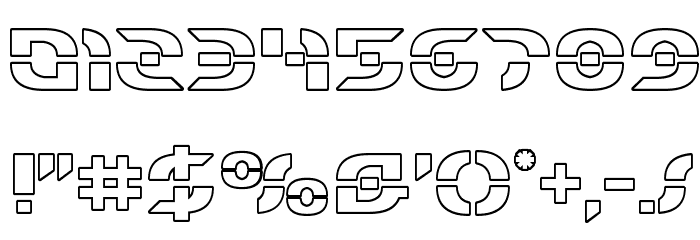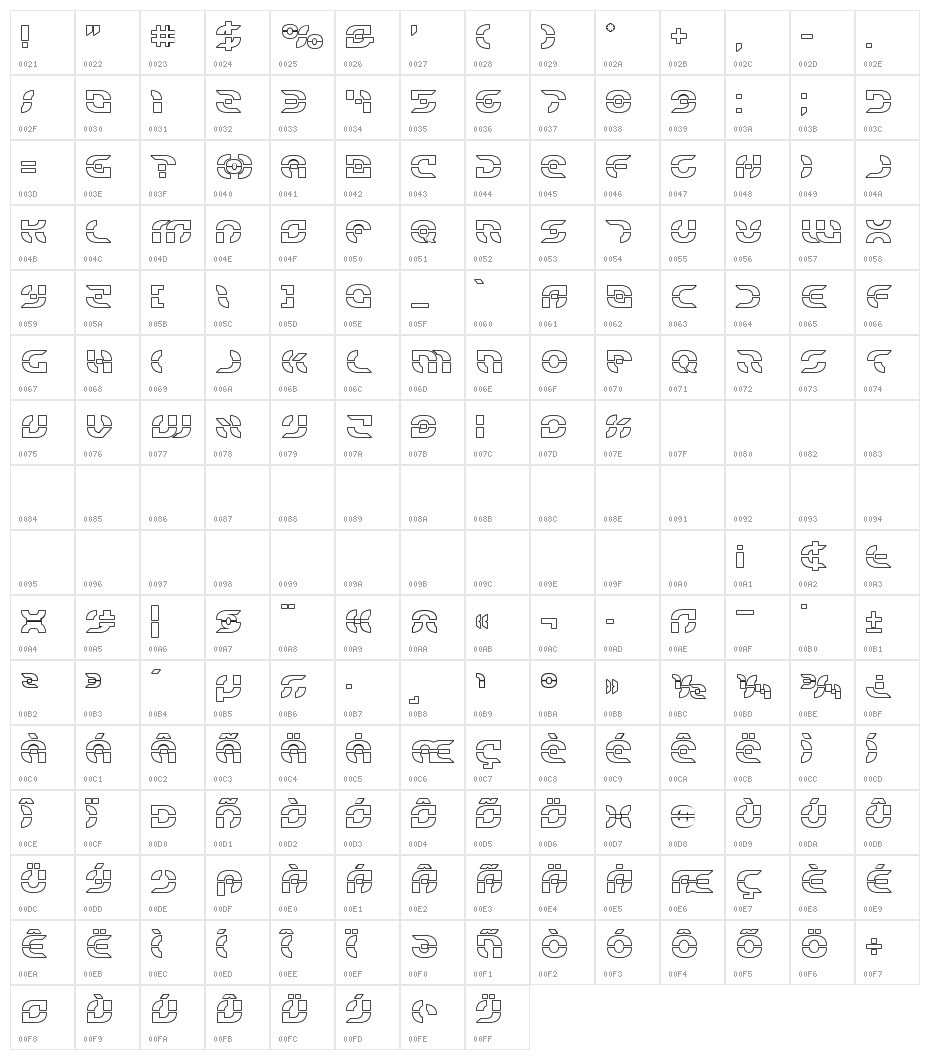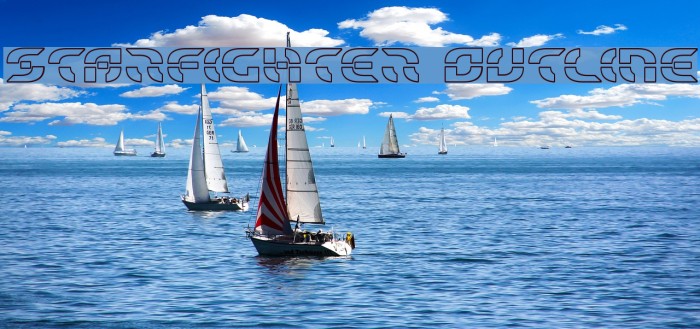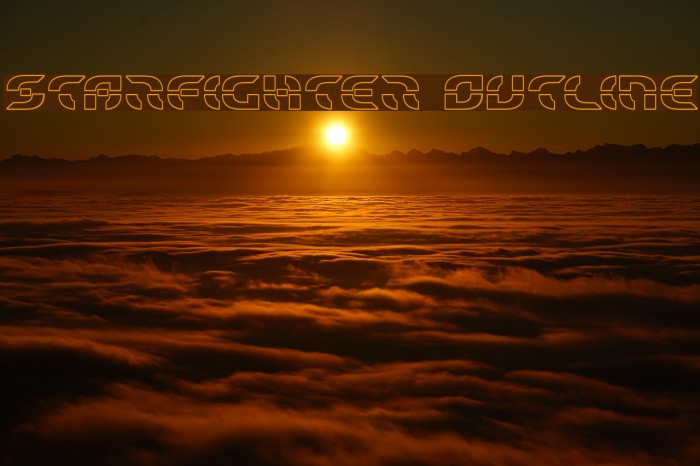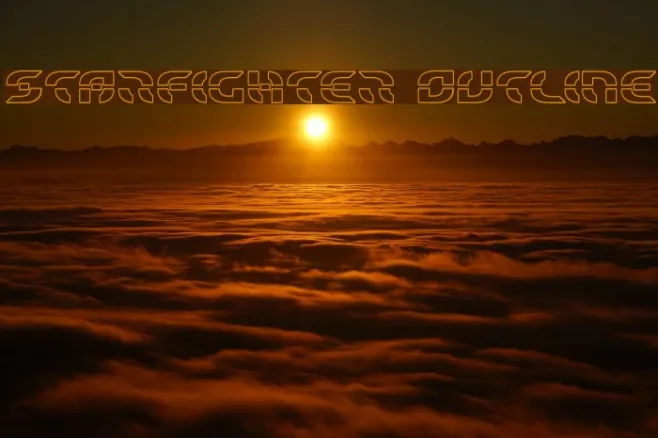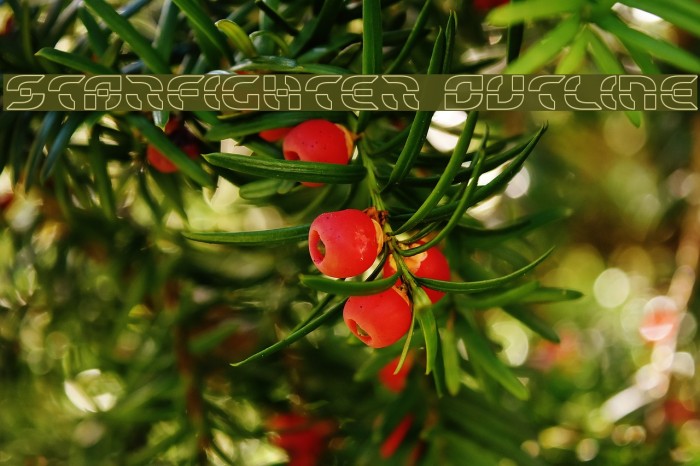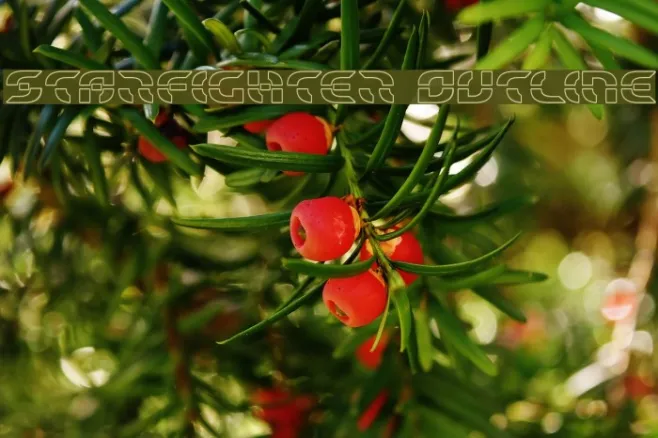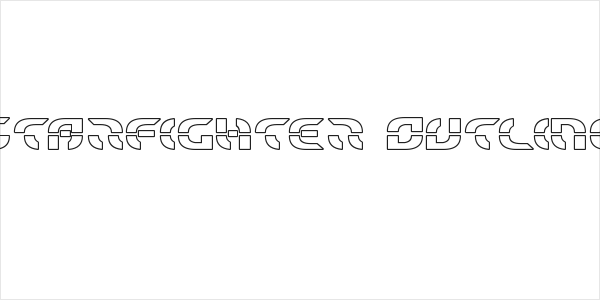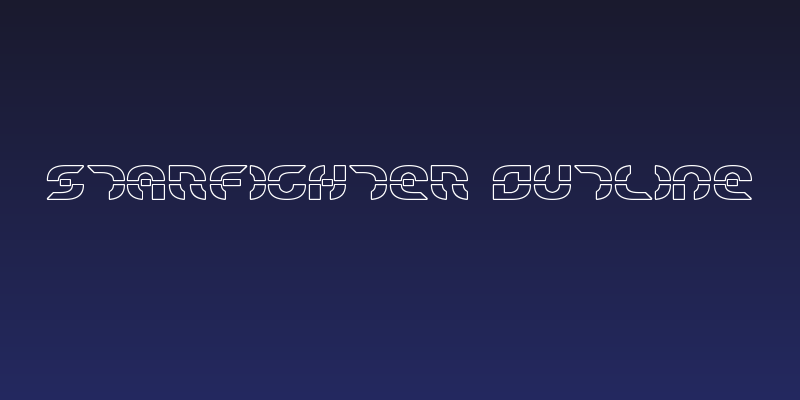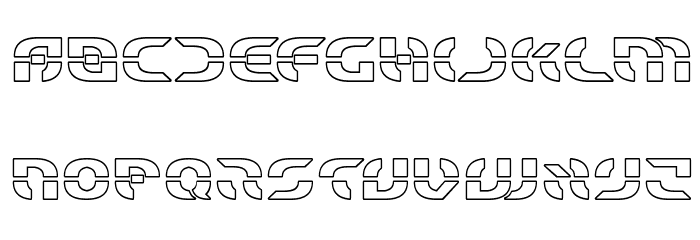
Starfighter Outline Font
Starfighter Outline Description
This font features a futuristic and geometric design with an outline style that gives it a distinct, space-age appearance. The characters are composed of bold lines with rounded edges and sharp angles, creating a dynamic and modern look. The uppercase and lowercase letters maintain a consistent style, with a unique blend of curves and straight lines that form each character. The numerals and special characters follow the same design principles, ensuring a cohesive appearance across all glyphs. This font's outline nature makes it ideal for designs that require a standout, eye-catching typeface.